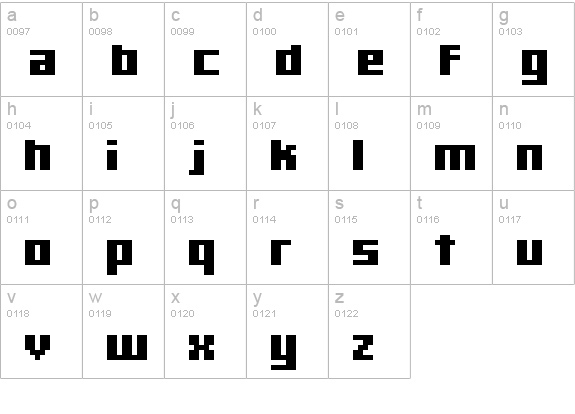
hooge 06_65 Font Details
Hooge 06_65 font is a modern and stylish typeface that exudes sophistication and elegance. With its clean lines and bold appearance, this font is perfect for creating eye-catching designs that demand attention. The versatility of Hooge 06_65 makes it suitable for a wide range of projects, from branding and advertising to editorial and web design. The best part is that Hooge 06_65 font is completely free to download at FontsMarket.com. This means you can access this stunning font without any cost, making it an excellent choice for both personal and commercial use. Don't miss out on the opportunity to enhance your projects with the beauty and versatility of Hooge 06_65 font – download it today and let your creativity shine!